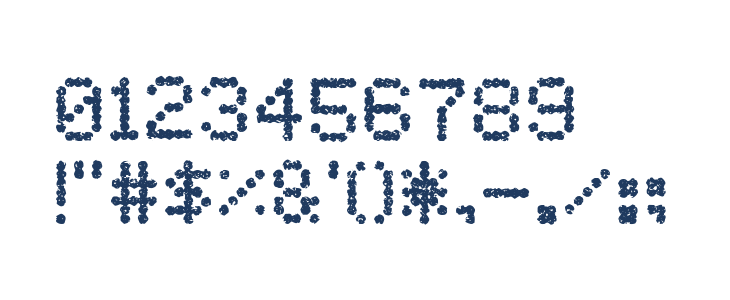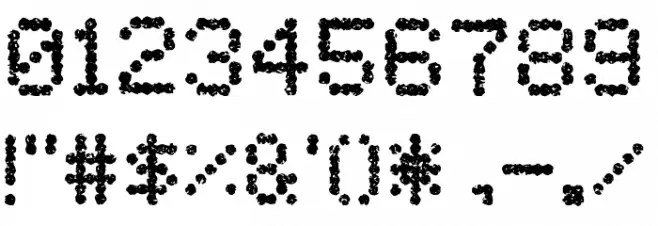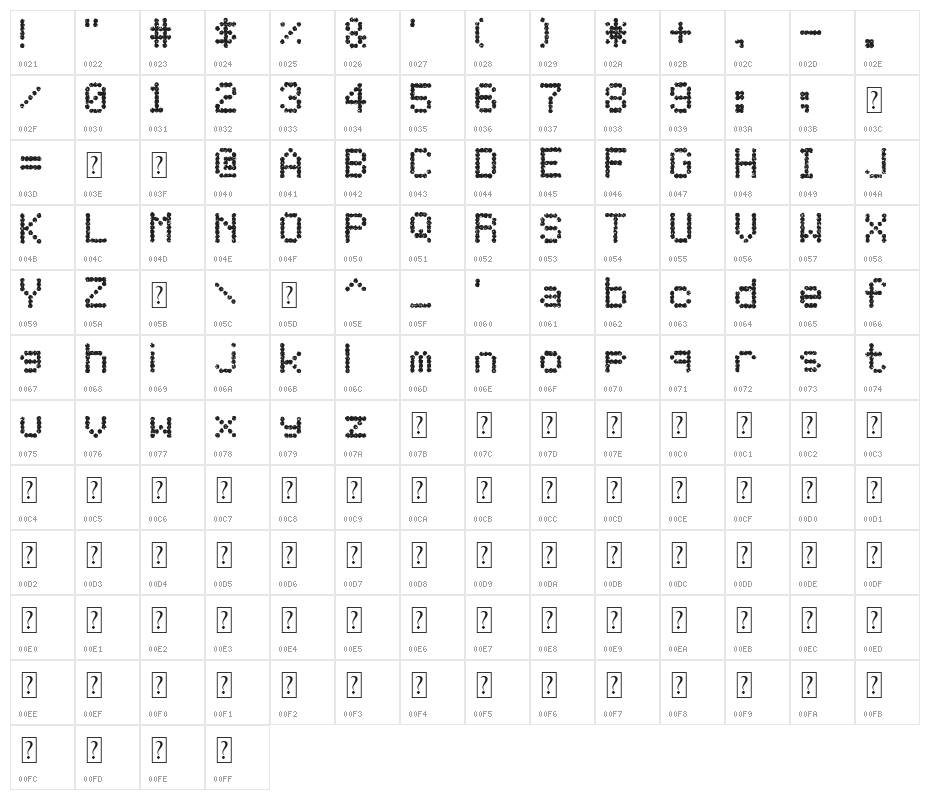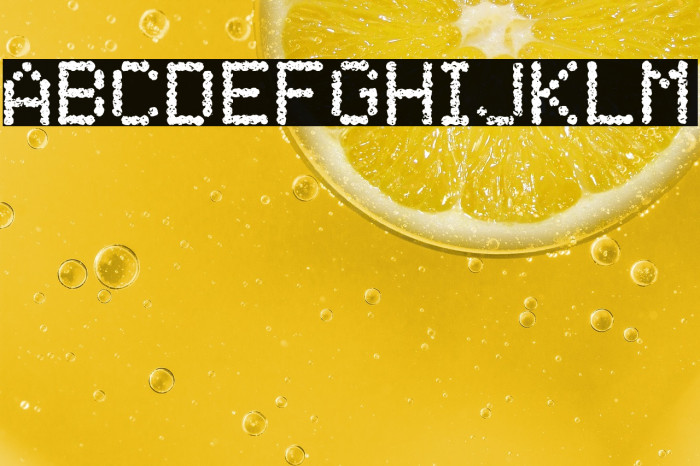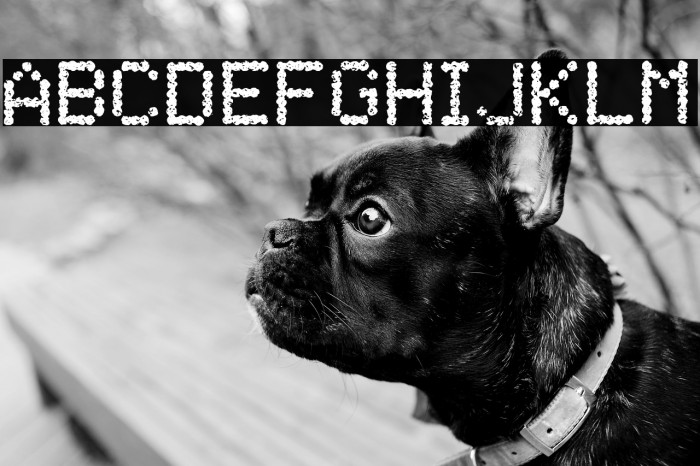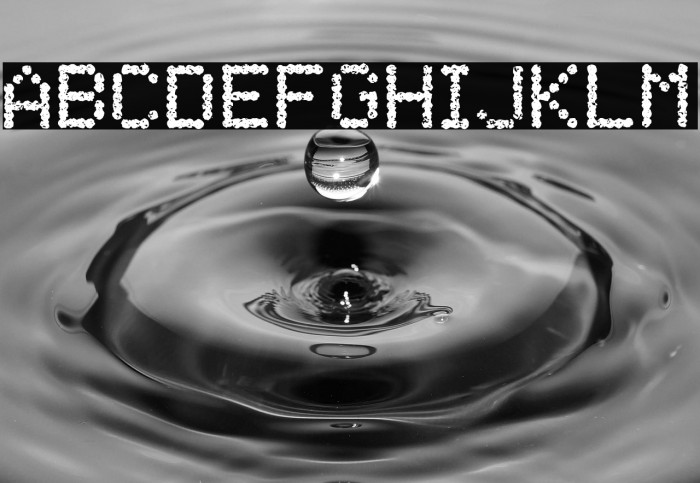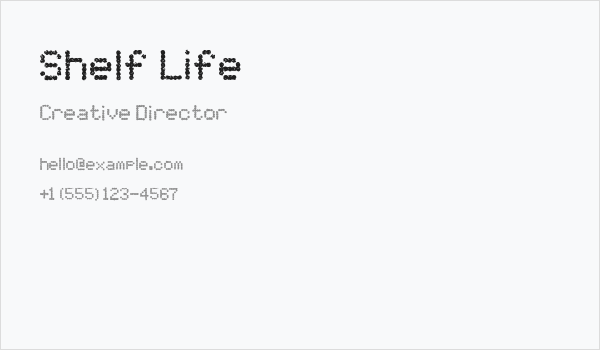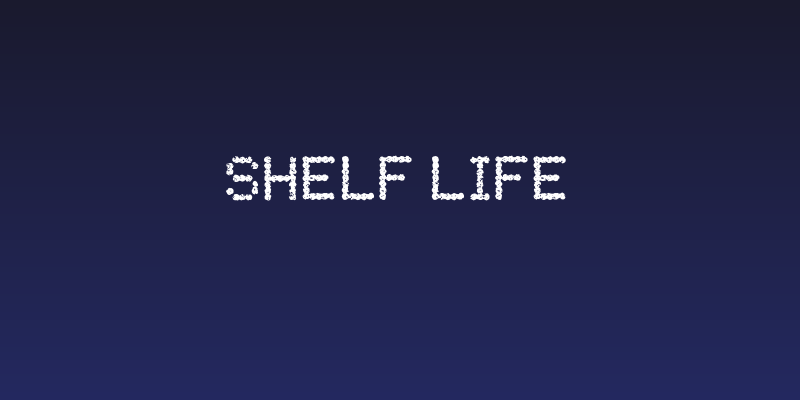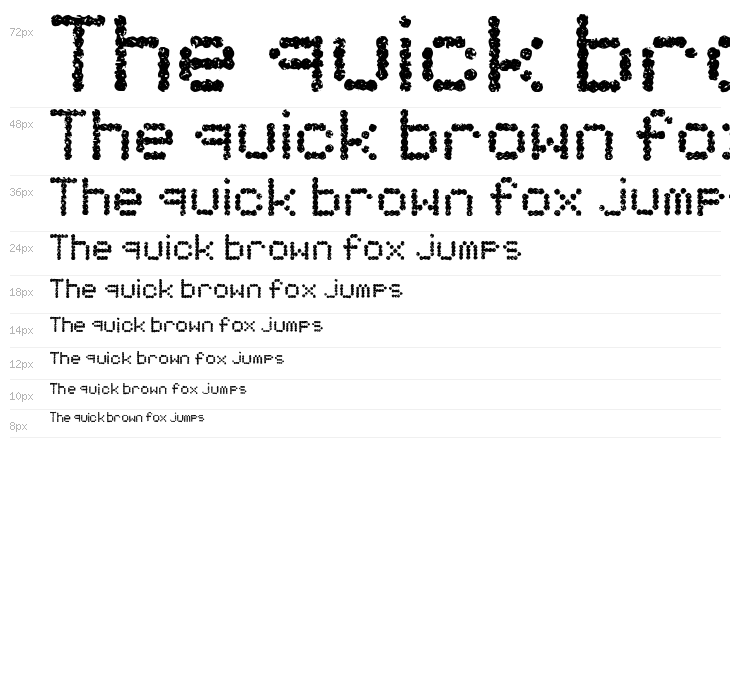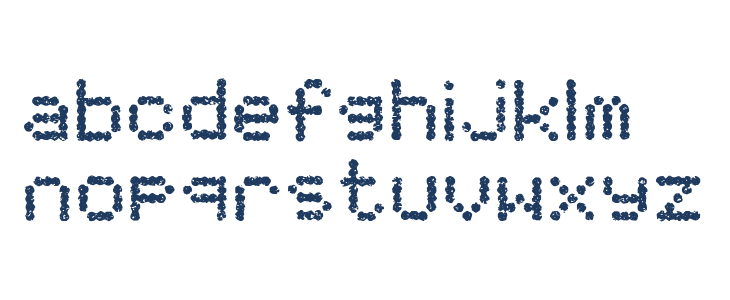
Shelf Life Font
Shelf Life Description
This font features a unique design where each character is composed of small, circular dots forming the shape of letters and numbers. The style is highly decorative, giving a playful and digital impression. The uppercase and lowercase letters maintain a consistent dot pattern, creating a cohesive look. The numbers and special characters follow the same dot-based structure, ensuring uniformity across all glyphs. This font's distinct appearance makes it stand out, ideal for creative and modern projects that require a touch of whimsy.